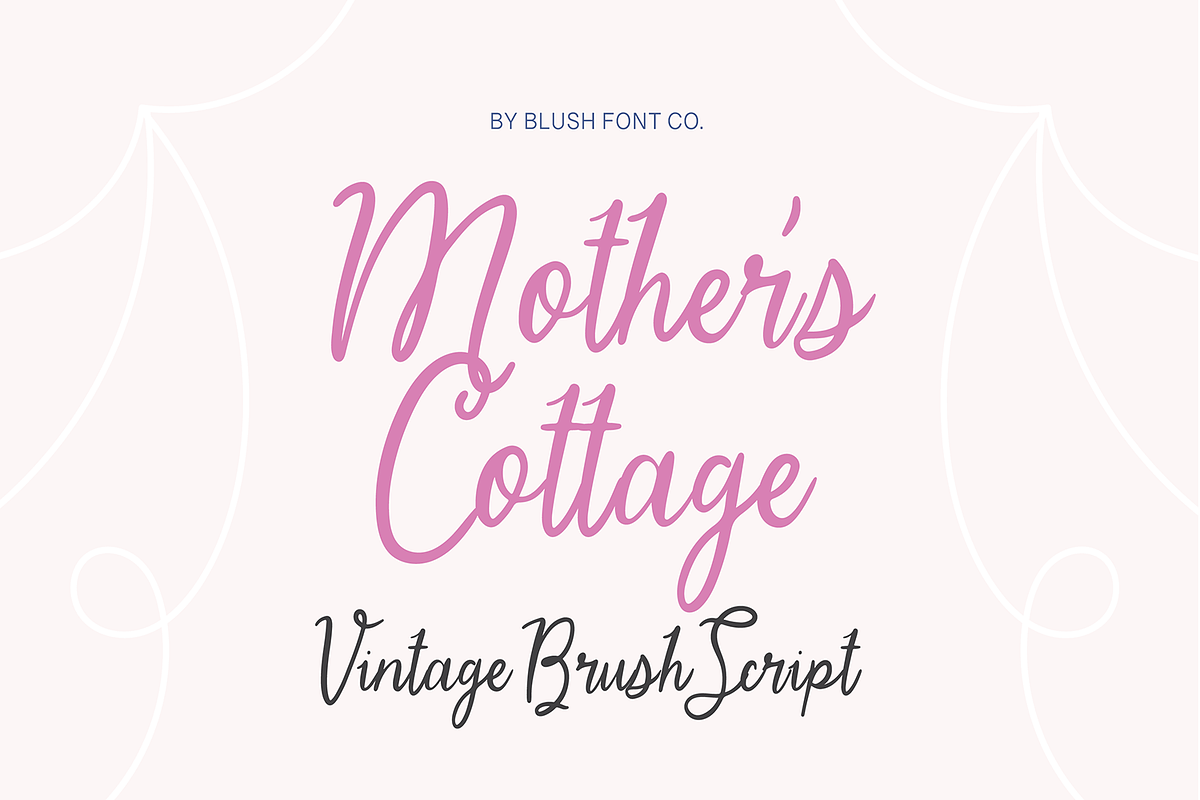
MOTHER'S COTTAGE Vintage Brush Font Free Download is a charming and rustic typeface that combines the organic feel of hand-painted brush strokes with a nostalgic vintage flair. This font is perfect for creating personalized invitations, retro branding, product packaging, and decorative designs with a warm, homey touch. Its flowing curves and expressive brushstrokes evoke a sense of craftsmanship and timeless elegance, making it ideal for both modern and vintage-inspired projects. Whether you’re working on a cozy café logo, a family event invitation, or a boutique label, MOTHER'S COTTAGE Vintage Brush Font Free Download lets you explore its unique personality in personal projects before purchasing a commercial license. Add warmth and character to your designs with this beautifully crafted brush font.